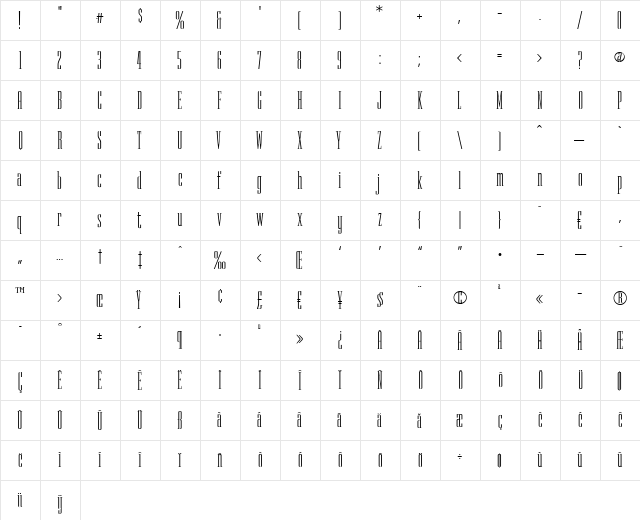
Chevron STF Regular
| Designer | Brian Sooy |
Design Context for Chevron STF Typeface
Chevron STF offers clean, dependable letterforms without strong stylistic allegiance, making it a practical choice for designers who need flexibility.